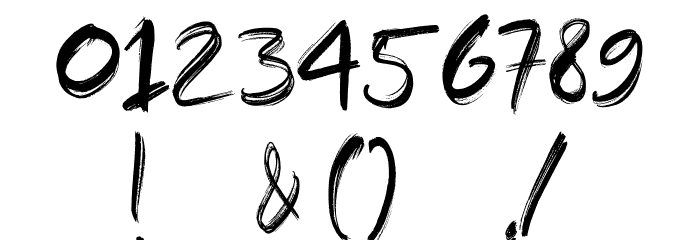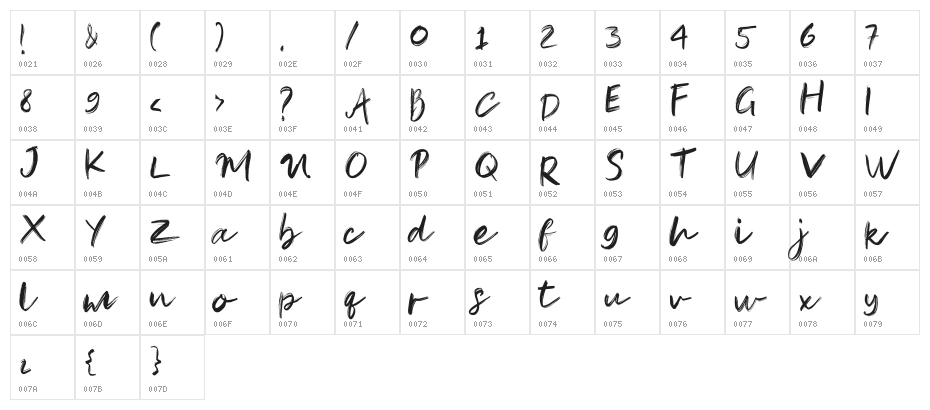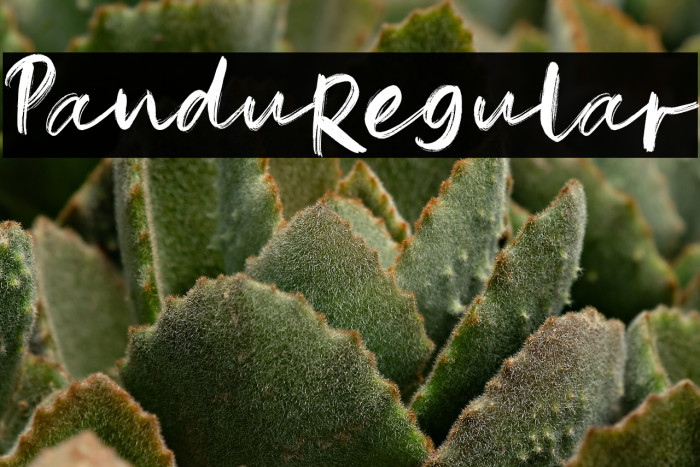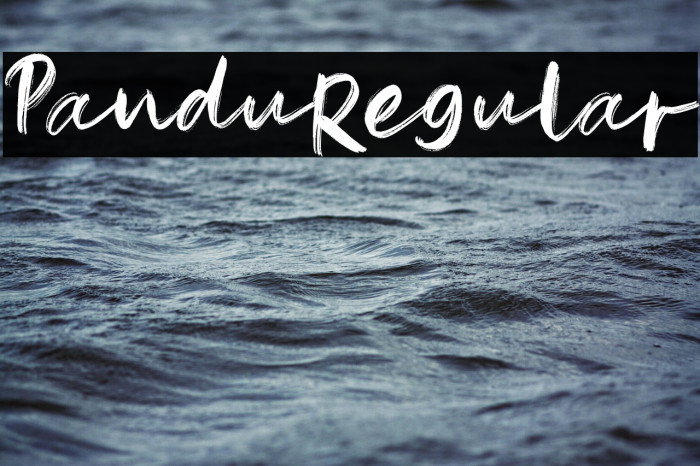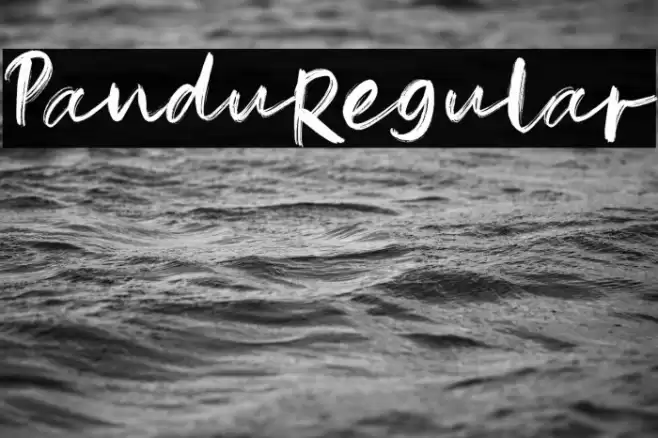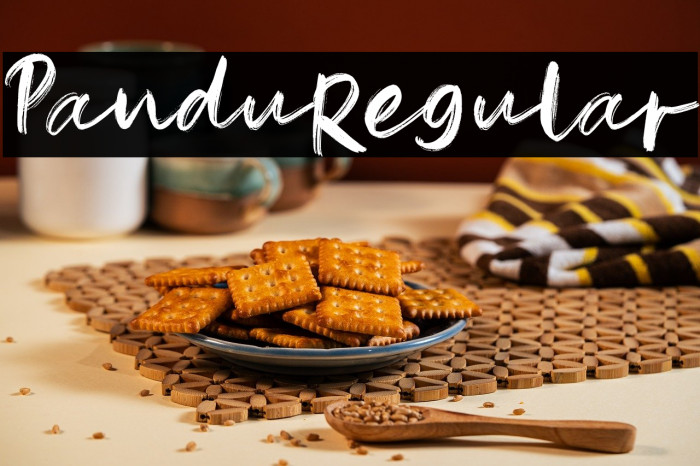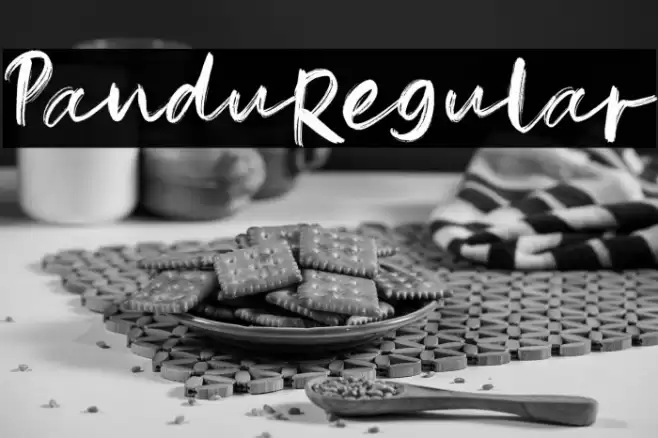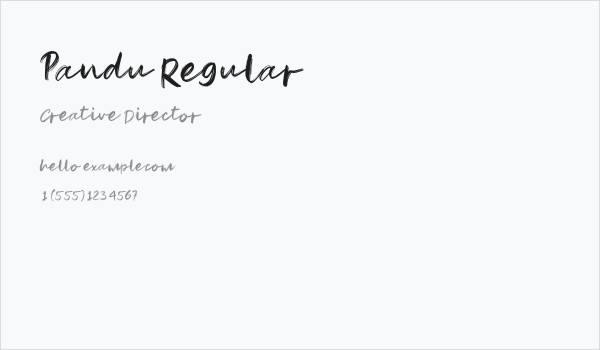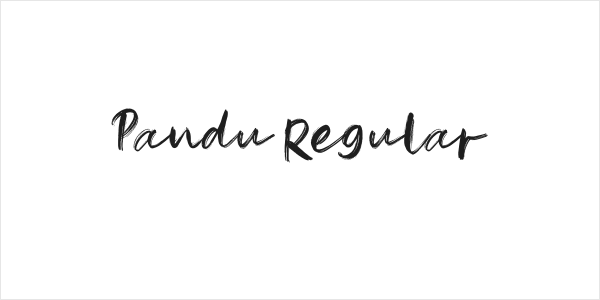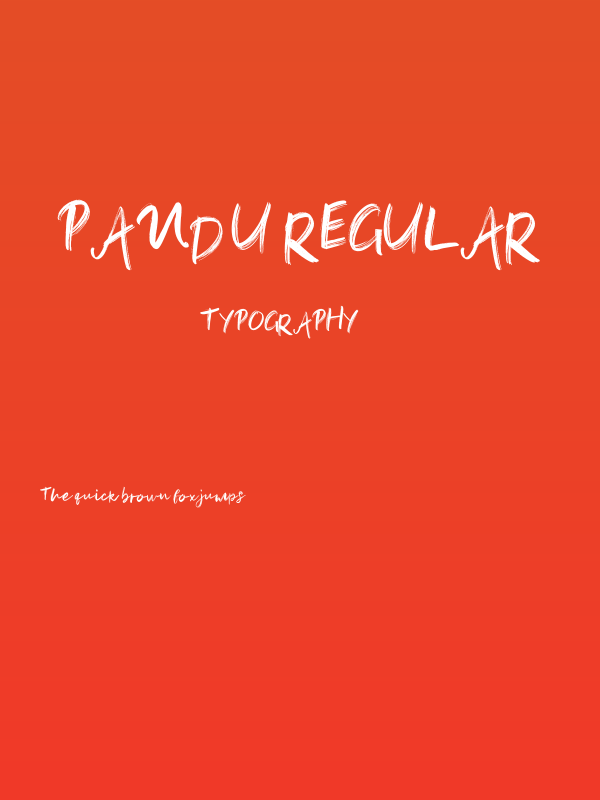
Pandu-Regular Font
Pandu-Regular Description
This font features a dynamic and expressive handwritten style, characterized by bold, sweeping strokes and a slightly irregular baseline that adds a sense of movement and energy. The letters are crafted with a brush-like texture, giving them a raw and artistic feel. The uppercase and lowercase letters maintain a consistent style, with the uppercase being slightly more pronounced. Numbers and special characters are designed to match the overall aesthetic, ensuring a cohesive look across all text. This font is ideal for projects that require a personal touch or a creative flair.
| Use Case | Headlines, Logos, Artistic projects |
| Proposed Projects | Ideal for branding, posters, invitations, and artistic projects that require a personal touch. |